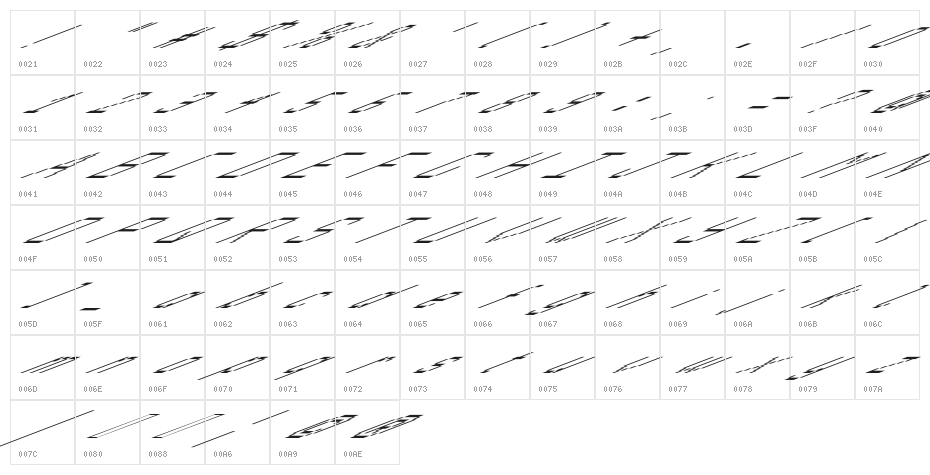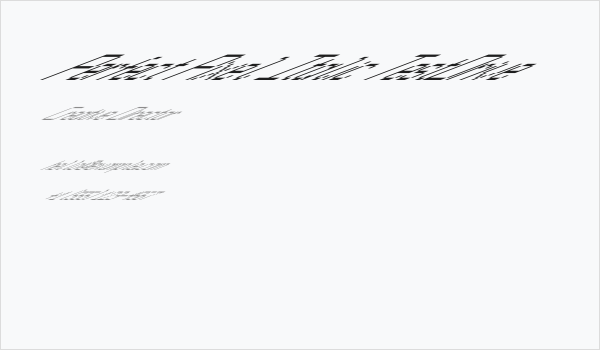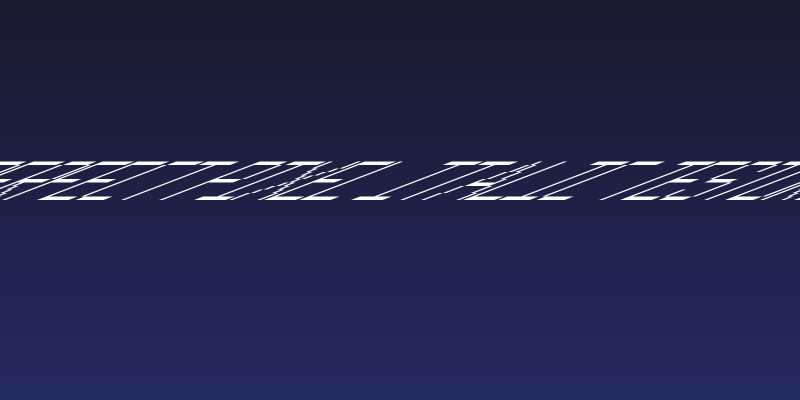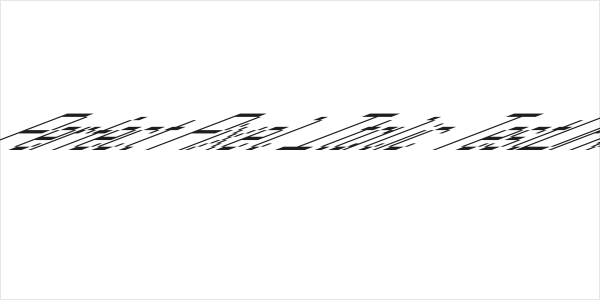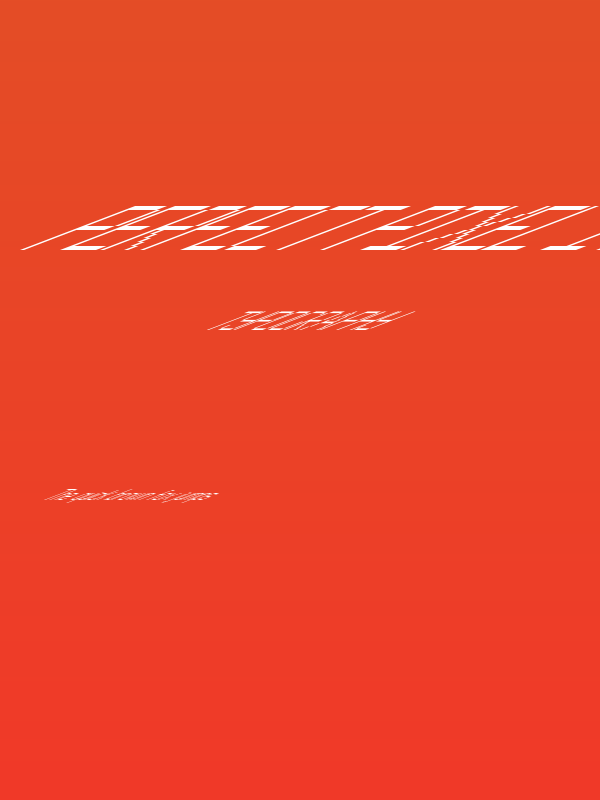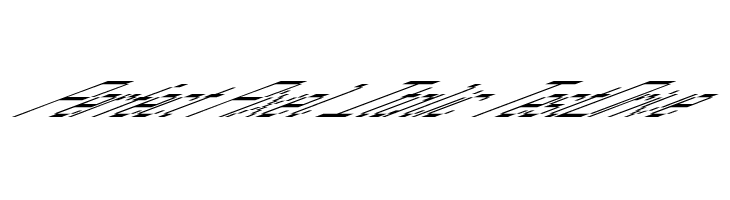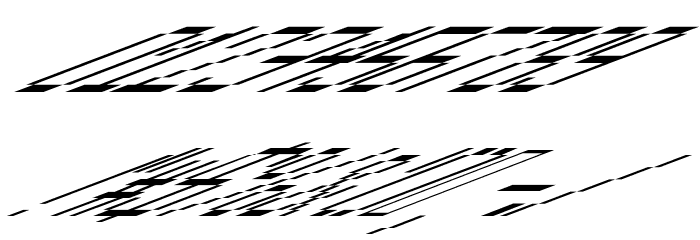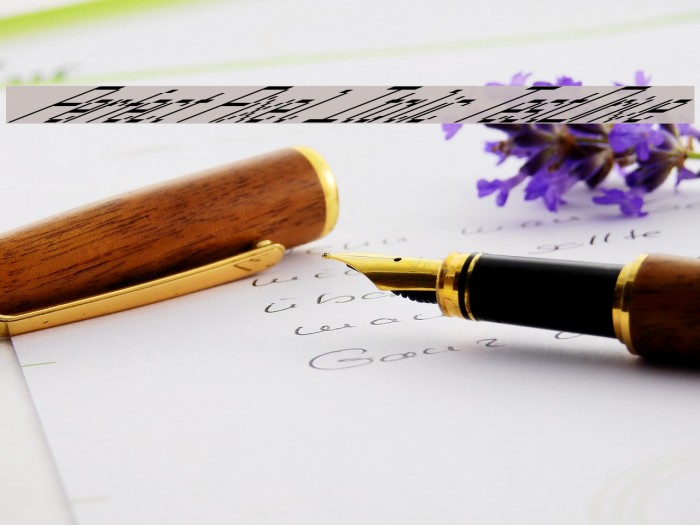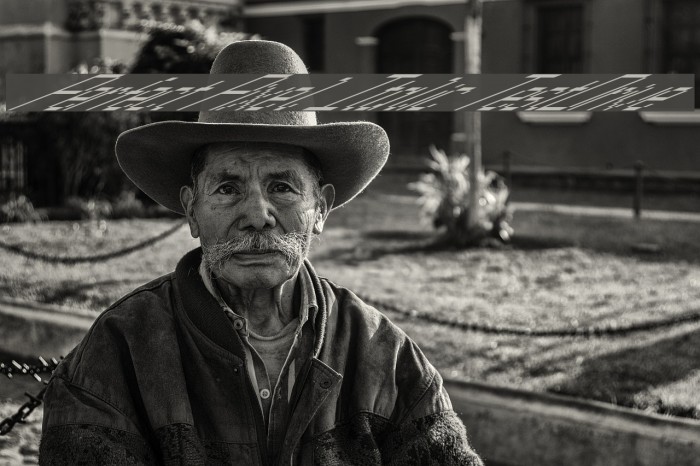
Perfect Pixel Italic TestDrive Font
Perfect Pixel Italic TestDrive Description
This font features a highly stylized, italicized design with a futuristic and digital aesthetic. The characters are composed of sharp, angular lines and fragmented segments, giving them a pixelated appearance. The slanted orientation adds a dynamic and fast-paced feel, reminiscent of digital glitch art or cyberpunk themes. Each letter is distinct, yet they collectively maintain a cohesive visual identity. The font's unique structure makes it stand out, ideal for projects that require a modern and edgy look.
| Proposed Projects | Ideal for video game titles, tech-themed posters, digital art projects, and sci-fi book covers. |